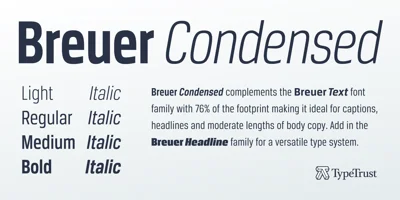
Breuer Condensed Font
Breuer Condensed Font is perfect for architectural firm branding, Bauhaus-inspired design projects, modernist museum exhibitions, industrial design presentations, minimalist corporate communications, contemporary art gallery materials, functional design documentation, systematic product packaging, progressive educational institutions, and refined mid-century modern branding.
What makes Breuer Condensed Font so exciting is its extraordinary ability to embody the revolutionary principles of modernist design through systematically condensed letterforms that seem crafted by the legendary architects and designers who transformed 20th-century aesthetics through the marriage of functional excellence and geometric beauty. This font captures the essence of Bauhaus philosophy and architectural precision, featuring systematically refined characters that appear designed according to the same principles that created the world's most influential modernist buildings and furniture. The methodically condensed letter shapes create an atmosphere of intellectual rigor and design authority, making every word feel like it carries the weight of design history and the promise of functional beauty that transcends decorative trends to achieve timeless excellence.
The Breuer Condensed Font family includes Ultra Light, Light, Regular, Medium, Bold, and Black weights, along with corresponding italic variations for emphasis applications. Each style maintains the font's distinctive modernist character while offering complete versatility for different architectural applications, from detailed technical specifications to commanding institutional headlines that announce breakthrough achievements in functional design and systematic innovation.
This distinguished typeface brings authentic Bauhaus modernist aesthetics to contemporary design projects. The Breuer Condensed Font provides designers with an exceptional tool to create memorable brand identities that communicate systematic thinking, functional excellence, and modernist authority. Whether you're developing architectural firm branding, designing museum exhibition materials, or creating systematic corporate communications, this font delivers unmatched refinement and design credibility.
The precisely engineered letterforms in Breuer Condensed Font feature optimal geometric proportions and systematic clarity that ensure maximum information density while expressing the disciplined aesthetic thinking and functional approach that define successful modernist design solutions. Each character has been designed to maintain perfect legibility while conveying the intellectual rigor and systematic beauty that separate modernist design from decorative alternatives. The font's distinctive personality makes it ideal for applications requiring genuine design authority and architectural credibility.
Architectural and design professionals appreciate how Breuer Condensed Font effortlessly communicates expertise, systematic thinking, and modernist excellence while adapting seamlessly to complex architectural documentation and multi-platform design systems that require consistent performance across diverse professional contexts. The comprehensive glyph set includes architectural symbols, modernist notation, design indicators, and extensive international language support, ensuring global compatibility while maintaining its distinctive Breuer identity. This makes it an invaluable resource for architectural firms, design institutions, museums, and any organization seeking typography that embodies the fundamental modernist principles of functional beauty, systematic clarity, and the kind of intellectual discipline that transforms practical necessity into expressions of aesthetic excellence that honor the revolutionary vision of designers who understood that true beauty emerges from the perfect marriage of form and function in service of human needs and aspirations.